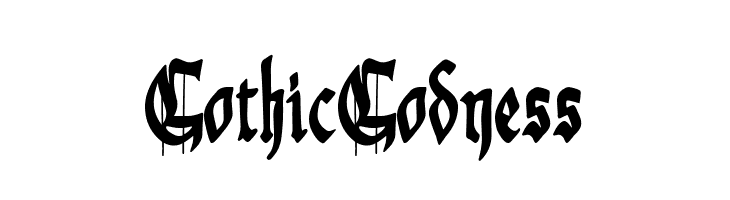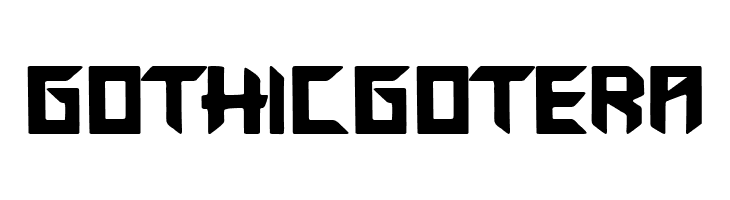
A bold, Gothic-style font with intricate details and high contrast, perfect for dramatic and historical themes.
A bold, angular Gothic-inspired font with a modern twist.
A whimsical and gothic-inspired font with playful, decorative elements.
A whimsical, hollow font with decorative, gothic-inspired elements.
A bold, edgy font with jagged, hand-drawn characters and a playful, chaotic vibe.
A bold, Gothic-inspired font with ornate, decorative frames around each character.
A bold, intricate Gothic-style font with modern flair and dramatic curves.
A bold and ornate blackletter font with intricate details, ideal for gothic-themed projects.
A bold, ornate Gothic font with intricate details and a historical feel.
A bold, intricate Gothic script with elaborate flourishes and sharp angles.